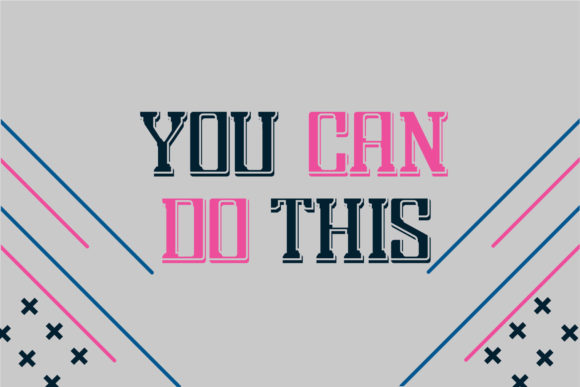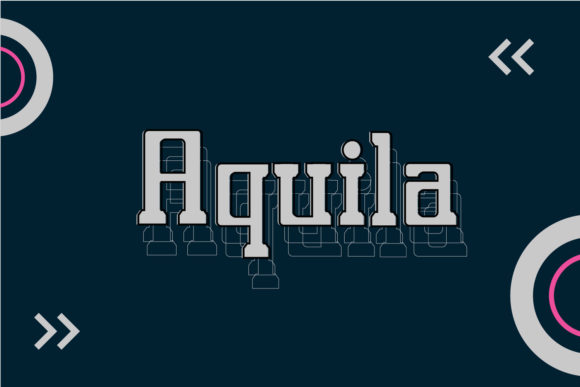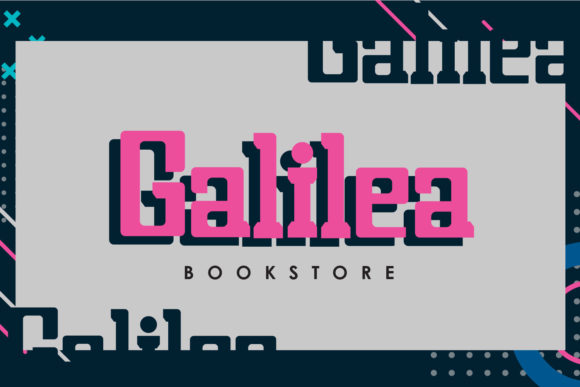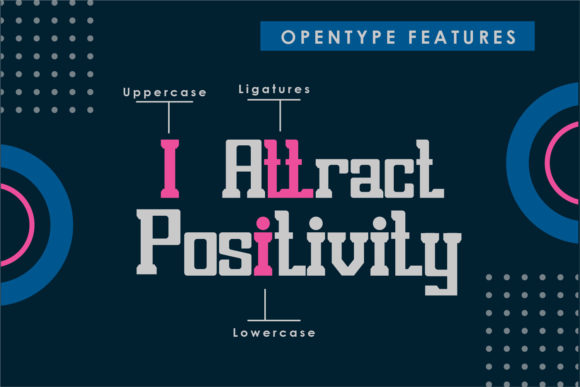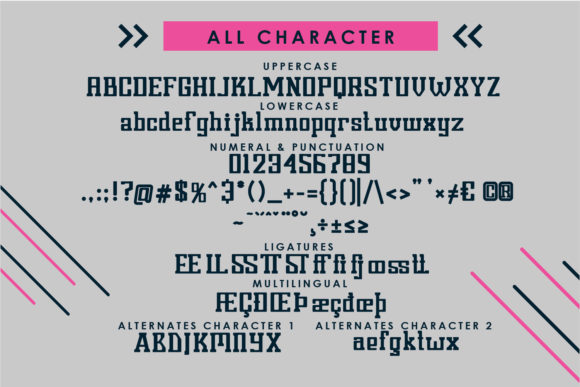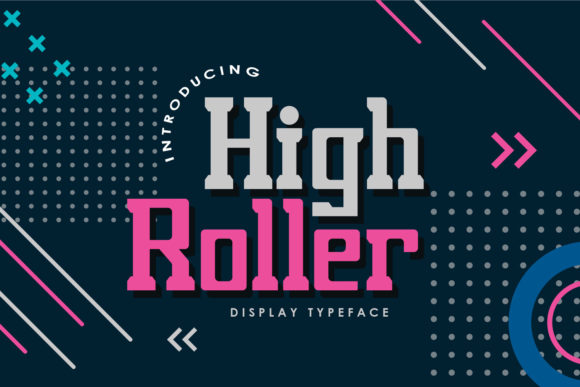
The High Roller Font: A Game-Changer for Designers and Creative Hobbyists
I’ll never forget the time I was working on a project for a client who wanted a bold, eye-catching font to make their poster stand out. I spent hours scouring the internet for the perfect font, but nothing seemed quite right. That was until I stumbled upon the High Roller font. This bold and squared lettered display font has been a game-changer for my design work, and I’m excited to share my experience with you. ✨
An Honest Review of High Roller Font
• ✨ Easy to use: High Roller font is PUA encoded, which means you can access all of the glyphs and swashes with ease.
• ✅ Highly versatile: This font looks great on posters, flyers, and any other design project that needs a bold statement.
• 🔥 Attention-grabbing: The squared lettering and bold design make it perfect for grabbing the attention of your audience.
While I love the High Roller font, there are a few things to keep in mind. 🤔
• ⚠️ Limited use cases: While the font is highly versatile, it’s best suited for display purposes only. It may not be the best choice for body text or smaller font sizes.
• ⚠️ Glyph management: While the font is PUA encoded, you’ll still need to manage the glyphs and swashes to get the most out of it.
The Backstory of High Roller Font
The High Roller font was designed by a team of creatives who wanted to create a bold and eye-catching font that would stand out in any design project. The font was inspired by the neon lights of the Las Vegas strip and the glamour of the high rollers who frequent the city’s casinos. 💃
Q: What is the High Roller font?
A: The High Roller font is a bold and squared lettered display font that’s perfect for posters, flyers, and any other design project that needs a bold statement.